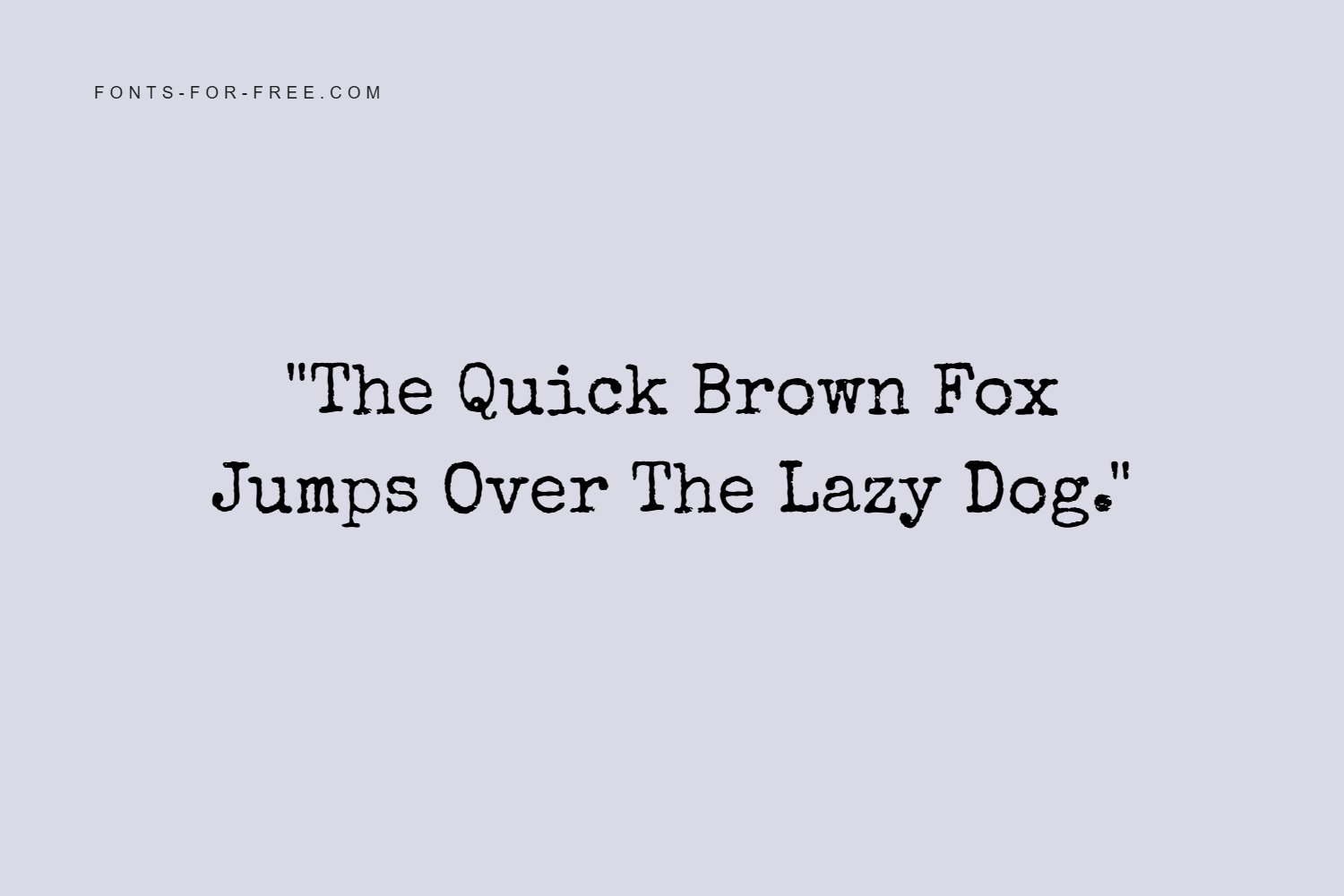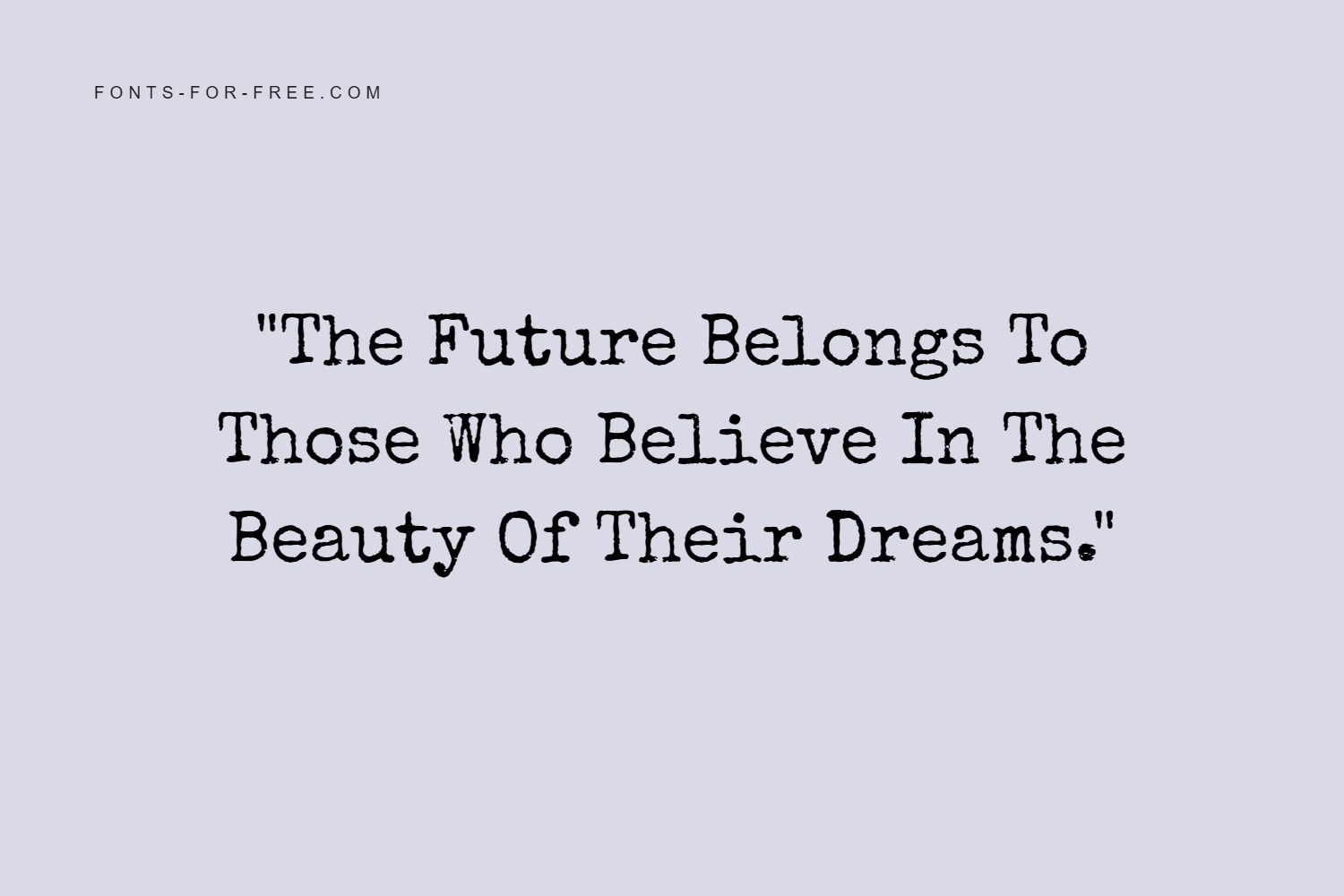
Special Elite is a display font that functions like a brand signature—instantly recognizable, full of character, and designed to make a visual identity feel human. With its typewriter-inspired forms and slightly worn edges, this font turns simple words into a distinctive “voice” that audiences remember at a glance.
This style suits brands that rely on authenticity: cafés and coffee roasteries, independent bookstores, creative studios, editorial brands or blogs, vintage clothing shops, handmade goods, documentary/film projects, music posters, podcast artwork, and event concepts with a retro or handmade spirit. It naturally builds a personality that feels nostalgic, honest, and warmly analog—like notes typed on paper, zines, or classic press materials.
For consistency, Special Elite is most effective as an accent font or title identity. Use it on logos, headings, packaging labels, quotes, menu headers, poster titles, or campaign slogans—then support it with a clean sans-serif font for body text and functional information. Keeping the layout simple and leaving enough spacing helps the rough texture look intentional rather than messy, and repeating it in the same role (title/quote/label) strengthens recognition across social media, print, and digital assets.